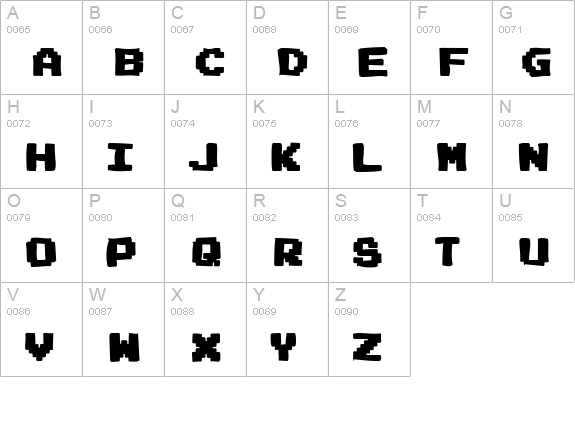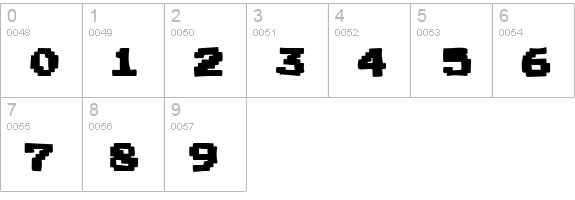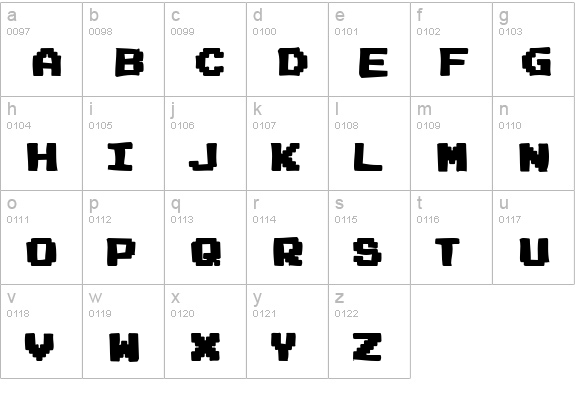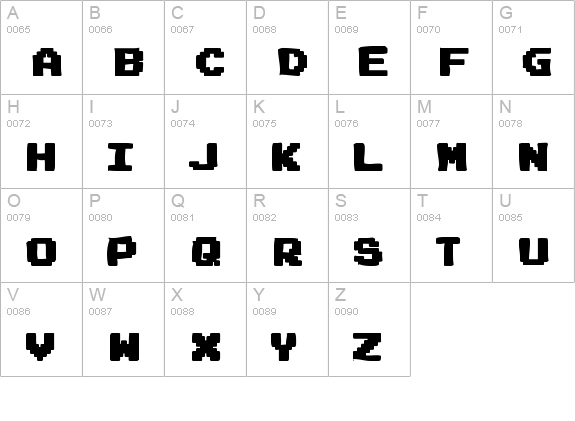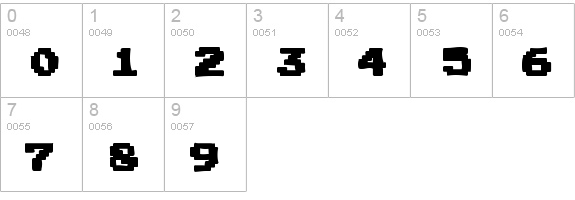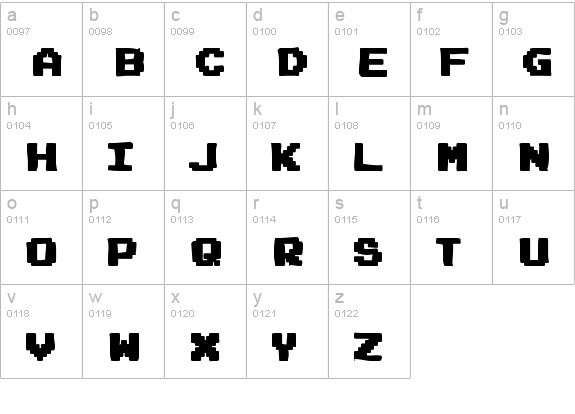
Joystix Ink Font Details
Introducing Joystix Ink font, a playful and energetic typeface that brings a sense of fun and excitement to your projects. This whimsical font is perfect for adding a touch of creativity to any design, whether it's for branding, posters, invitations, or social media graphics. With its bold and dynamic appearance, Joystix Ink font is sure to make a statement and capture the attention of your audience. The unique hand-drawn style gives it a personal touch that sets it apart from other fonts. Best of all, Joystix Ink font is available for free download at FontsMarket.com. This means you can easily access this versatile font and use it in your projects without any hassle. Elevate your designs with the vibrant and expressive Joystix Ink font today!